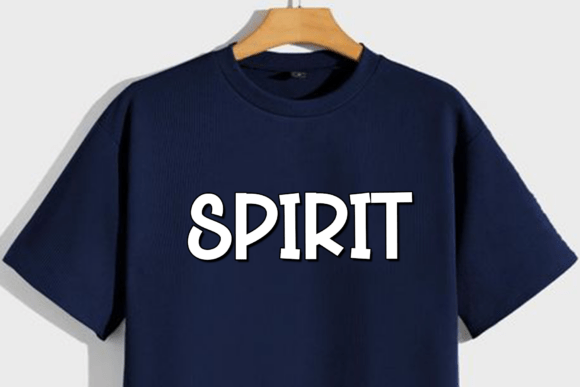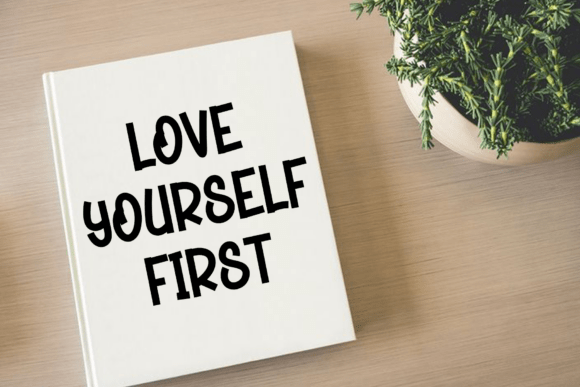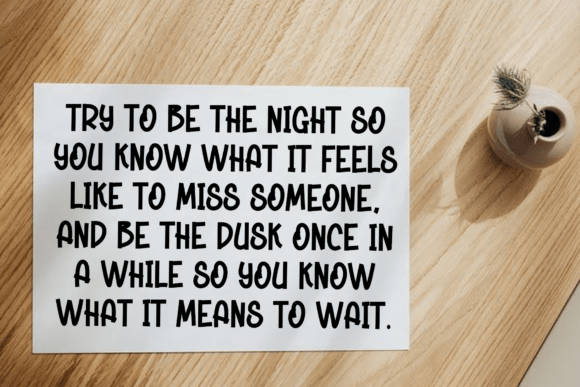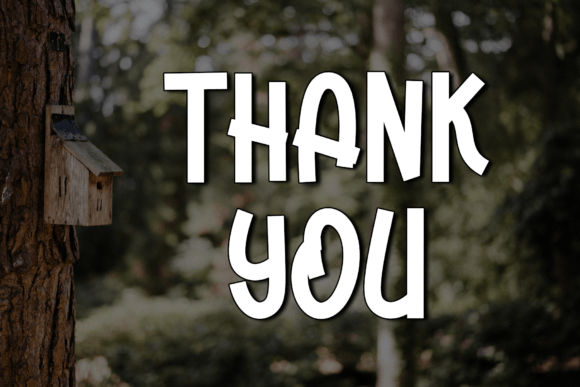
Birdhouse Font: Elevate Your Designs with a Minimal and Neat Style
Are you on the lookout for a font that can add a touch of simplicity and elegance to your designs? Look no further than the Birdhouse Font. This minimal and neat font is perfect for a wide range of projects, from crafting and DIY tutorials to digital designs and marketing materials. In this article, we’ll dive into the world of Birdhouse Font and explore how it can help take your creative ideas to the next level.
What is Birdhouse Font?
Birdhouse Font is a carefully crafted typeface that exudes a sense of calmness and serenity. Its clean lines, simple shapes, and uncluttered design make it an excellent choice for designers and crafters who want to add a touch of sophistication to their work. Whether you’re creating a logo, a poster, or a social media graphic, Birdhouse Font is sure to make your designs stand out.
Key Features of Birdhouse Font
So, what makes Birdhouse Font so special? Here are some of its key features:
- Minimalist design: Birdhouse Font boasts a simple and uncluttered design that makes it perfect for a wide range of projects.
- Neat and clean lines: The font’s clean lines and curves make it easy to read and understand, even at small sizes.
- Highly versatile: Birdhouse Font can be used in a variety of contexts, from digital designs to print materials.
- Easily customizable: The font is highly customizable, allowing you to adjust its size, color, and style to suit your needs.
How to Use Birdhouse Font in Your Designs
Now that we’ve covered the basics of Birdhouse Font, let’s explore how you can use it in your designs. Here are some ideas to get you started:
- Crafting and DIY tutorials: Use Birdhouse Font to add a touch of elegance to your crafting and DIY tutorials.
- Digital designs: Add Birdhouse Font to your digital designs, such as social media graphics, blog posts, and email newsletters.
- Marketing materials: Use Birdhouse Font in your marketing materials, such as brochures, flyers, and business cards.
- Logos and branding: Birdhouse Font is perfect for creating logos and branding materials that require a simple and elegant design.
Tips for Getting the Most Out of Birdhouse Font
To get the most out of Birdhouse Font, here are some tips to keep in mind:
- Experiment with different sizes: Try out different font sizes to see how Birdhouse Font looks in various contexts.
- Play with color: Experiment with different colors to see how they affect the overall look and feel of your design.
- Mix and match with other fonts: Birdhouse Font pairs well with other fonts, so don’t be afraid to experiment with different combinations.
In conclusion, Birdhouse Font is a versatile and elegant font that can add a touch of sophistication to your designs. Its minimalist design, neat lines, and high customizability make it perfect for a wide range of projects. Whether you’re a designer, crafter, or DIY enthusiast, Birdhouse Font is sure to become a staple in your creative toolkit. So why wait? Add Birdhouse Font to your creative ideas and notice how it makes them stand out!
Birdhouse Font is a minimal and neat font. It can easily be matched to an incredibly large set of projects, so add it to your creative ideas and notice how it makes them stand out!